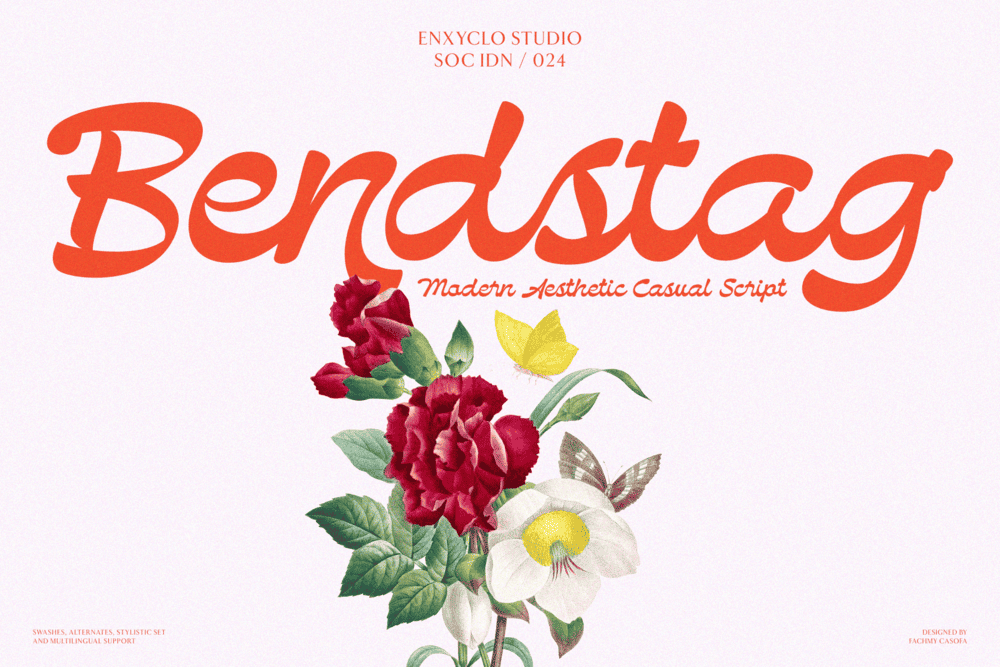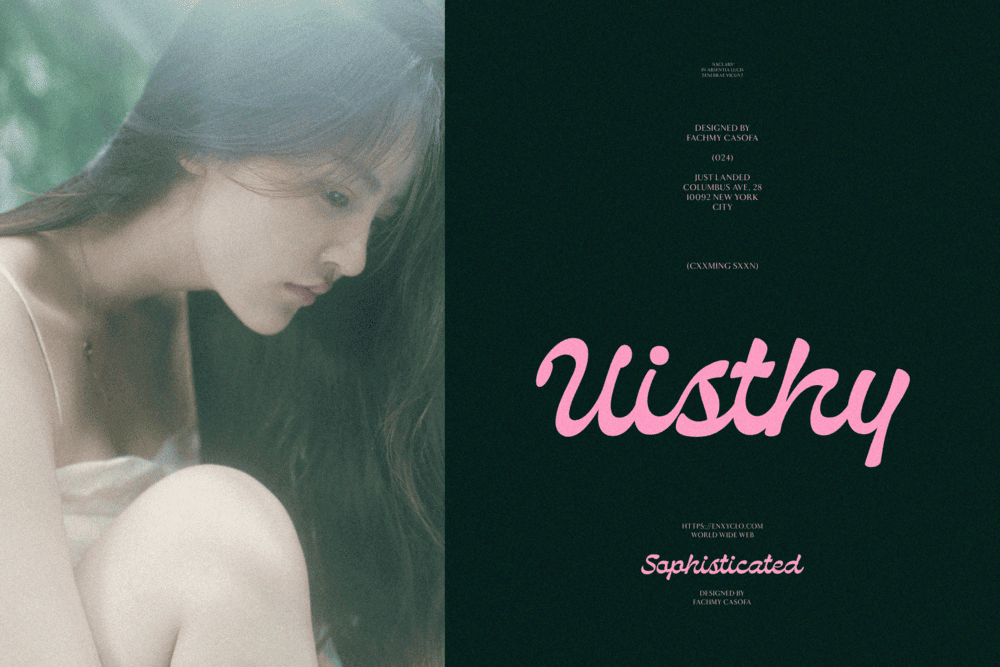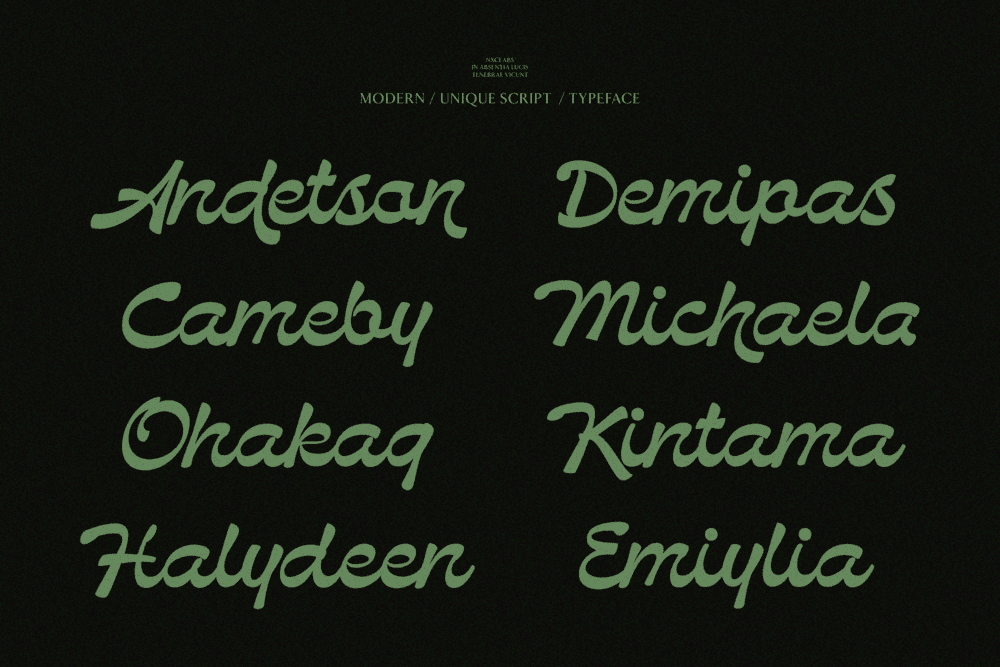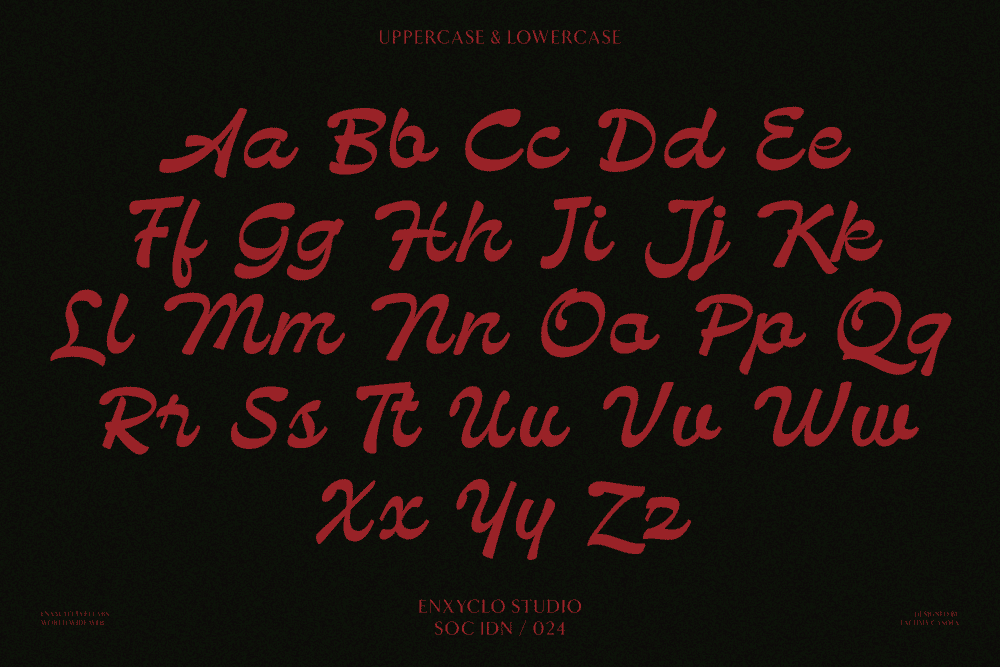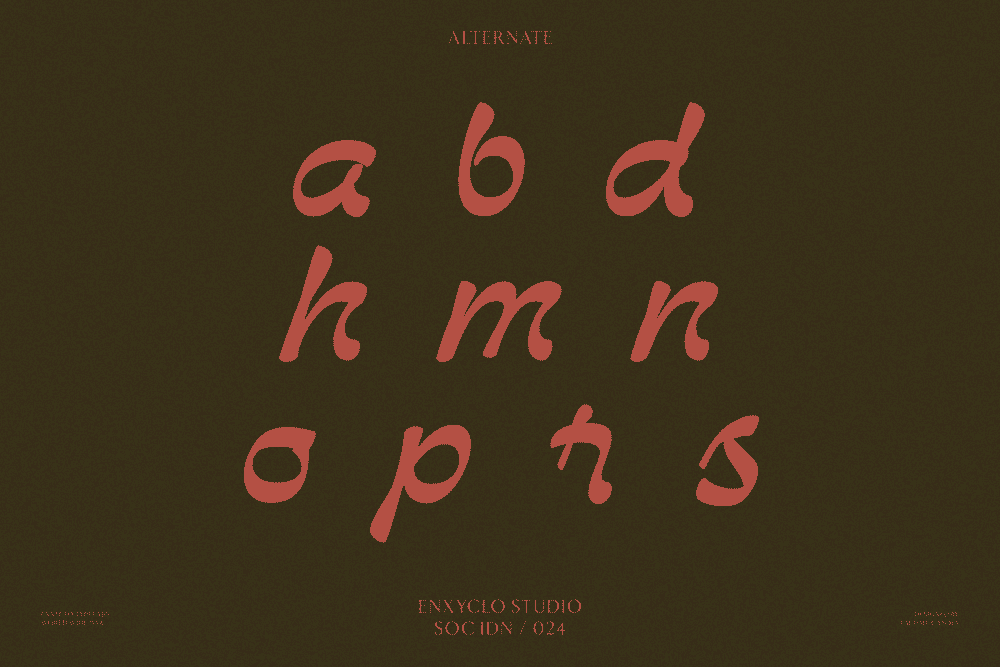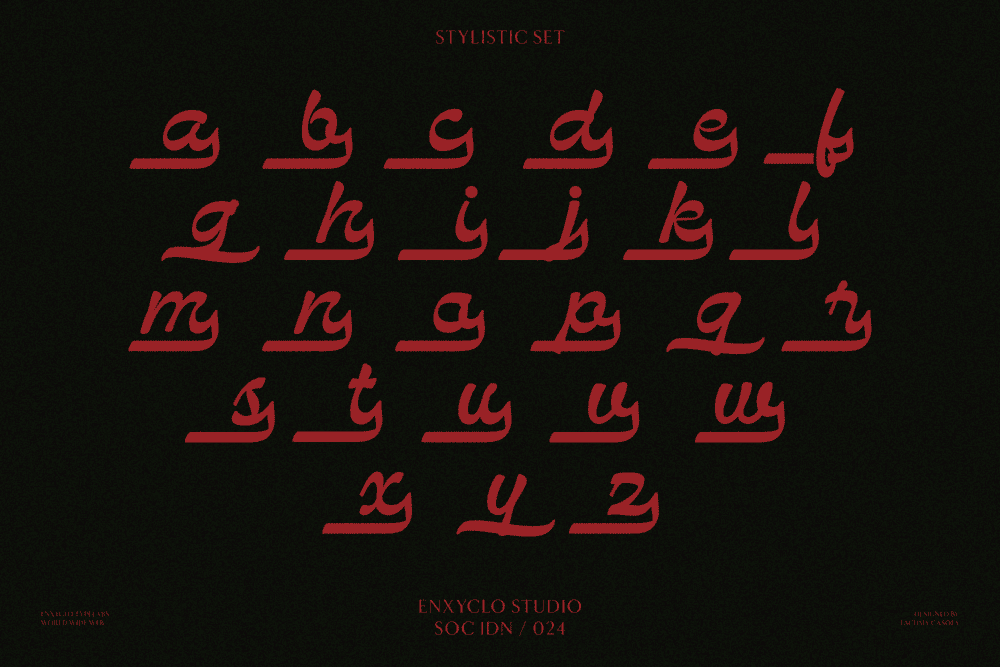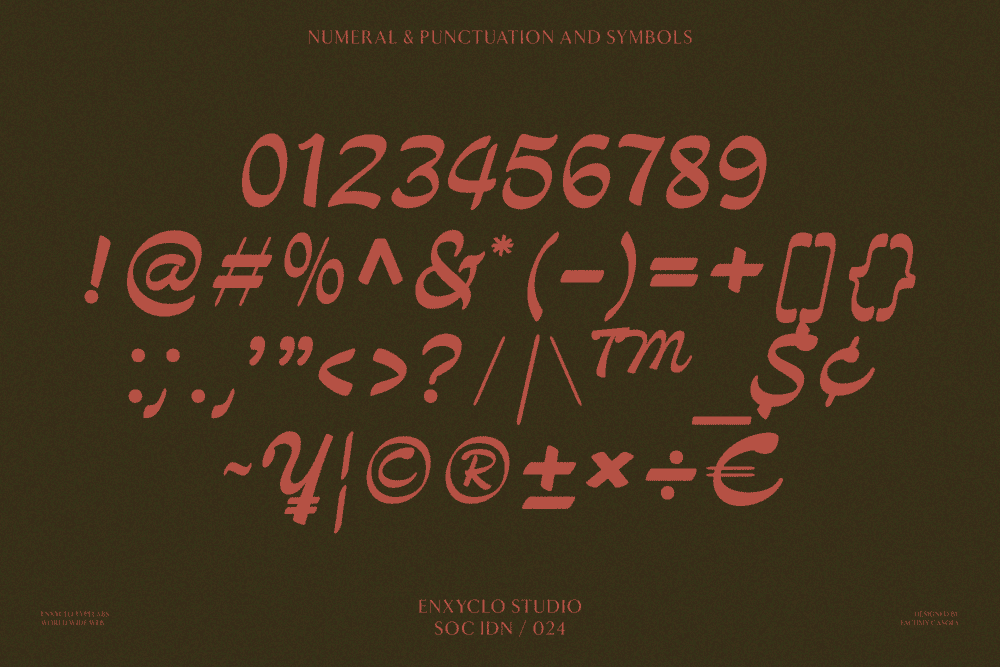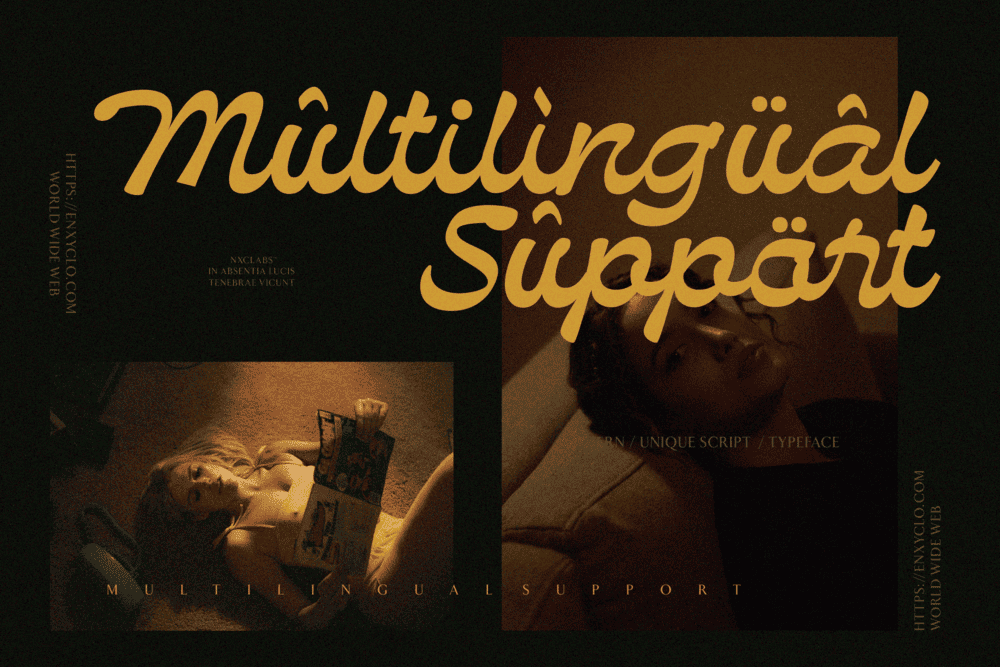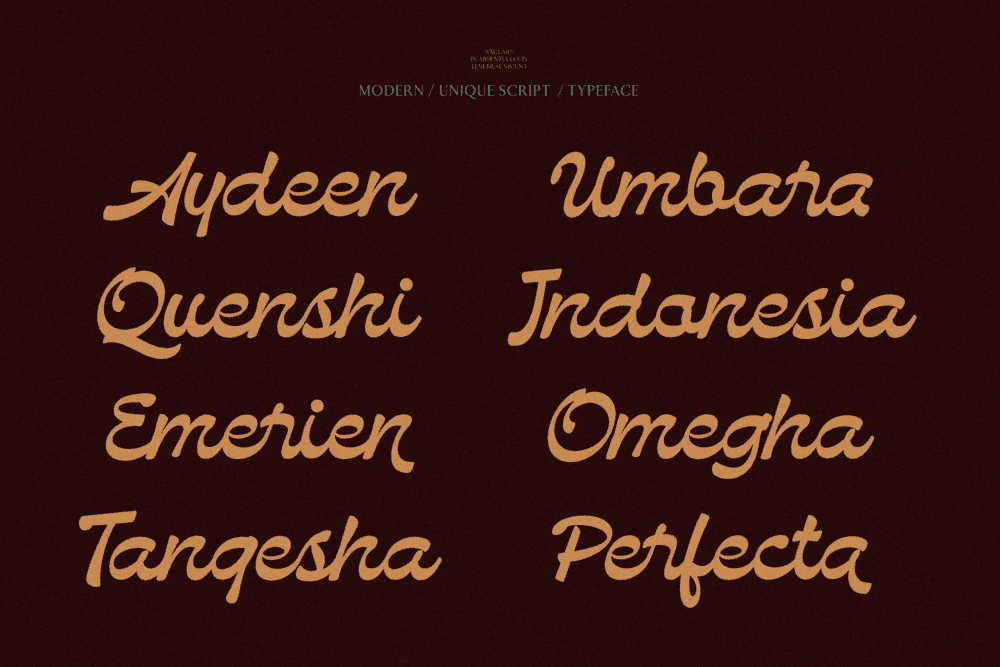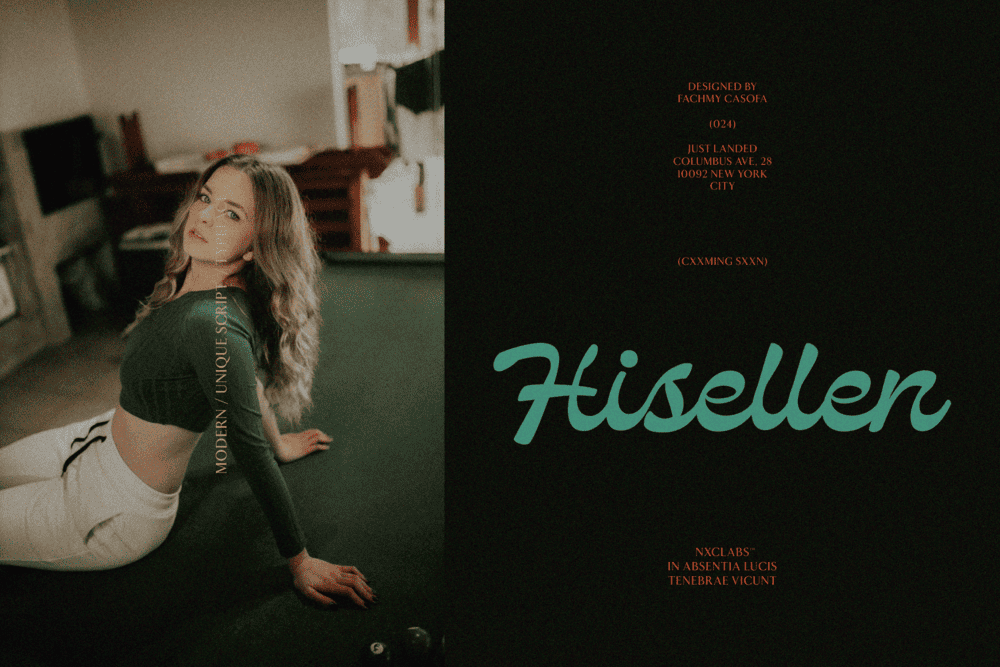
NCL BENDSTAG is a timeless modern bold script font created to bring together luxury, elegance, and confident visual expression. Designed with flowing curves and bold strokes, this typeface delivers a perfect harmony between graceful movement and strong character. The result is a lavish and premium script font that feels rich, stylish, and effortlessly sophisticated. Crafted for modern brands that seek distinction, NCL BENDSTAG transforms typography into a refined statement of identity. Its bold script style creates an eye-catching presence while maintaining a smooth and elegant rhythm, making it ideal for logo design, fashion branding, boutique identities, and premium visual storytelling. Every curve is carefully shaped to create a luxurious aesthetic that feels both contemporary and timeless.
Inspired by the beauty of high-end fashion, cosmetic, skincare, and glamour industries, NCL BENDSTAG brings warmth and personality into every composition. Whether used on product packaging, beauty campaigns, editorial layouts, or elegant brand visuals, this font delivers a rich and aesthetic atmosphere that enhances the emotional value of your design. More than just a script font, NCL BENDSTAG is a visual signature of modern elegance—crafted for creators who want to build luxurious brands, premium logos, and unforgettable visual experiences.
• Uppercase & Lowercase Letters
• Alternate & Stylistic Set
PERFECT FOR
• Luxury Logo & Branding
• Fashion & Boutique Identity
• Beauty, Cosmetic & Skincare Packaging
• Premium Product Labels
• Glamour Advertising Campaigns
• Elegant Editorial & Magazine Design
• Signature Logos & Personal Branding
• Wedding Invitations & Luxury Stationery
• Social Media Branding
• High-End Visual Identity Design